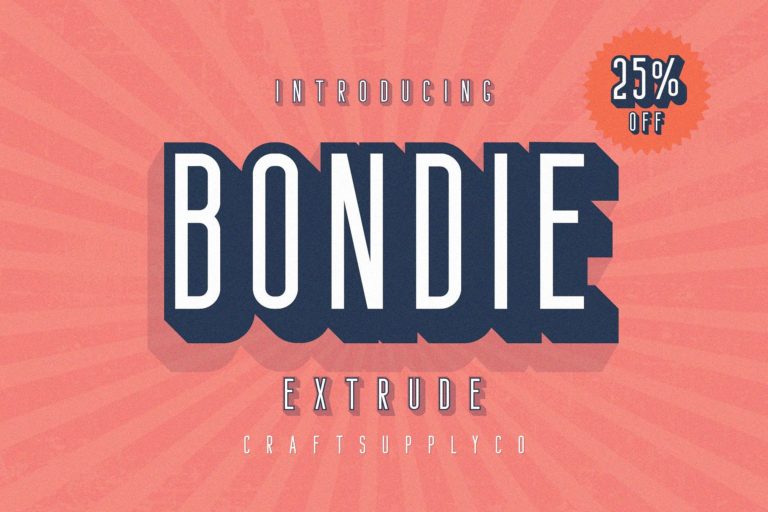
Bondie Extrude Font Family
Hi designer! Continue to be a design of Craft Supply Co. Introducing Bondie Font. Bondie Extrude is a Sans Serif style display font in 4 layers, Bondie was the result of an exploration of Retro American and European bold Sans Serif lettering for advertising. is an attractive contemporary typeface drawn from scratch with brand-new, more vigorous detailing — and layerable variations for chromatic use.
Bondie Extrude Font Family is suitable for Logo, greeting cards, quotes, posters, branding, name card, stationary, design title, blog header, art quote, typography art, modern envelope lettering or book design.